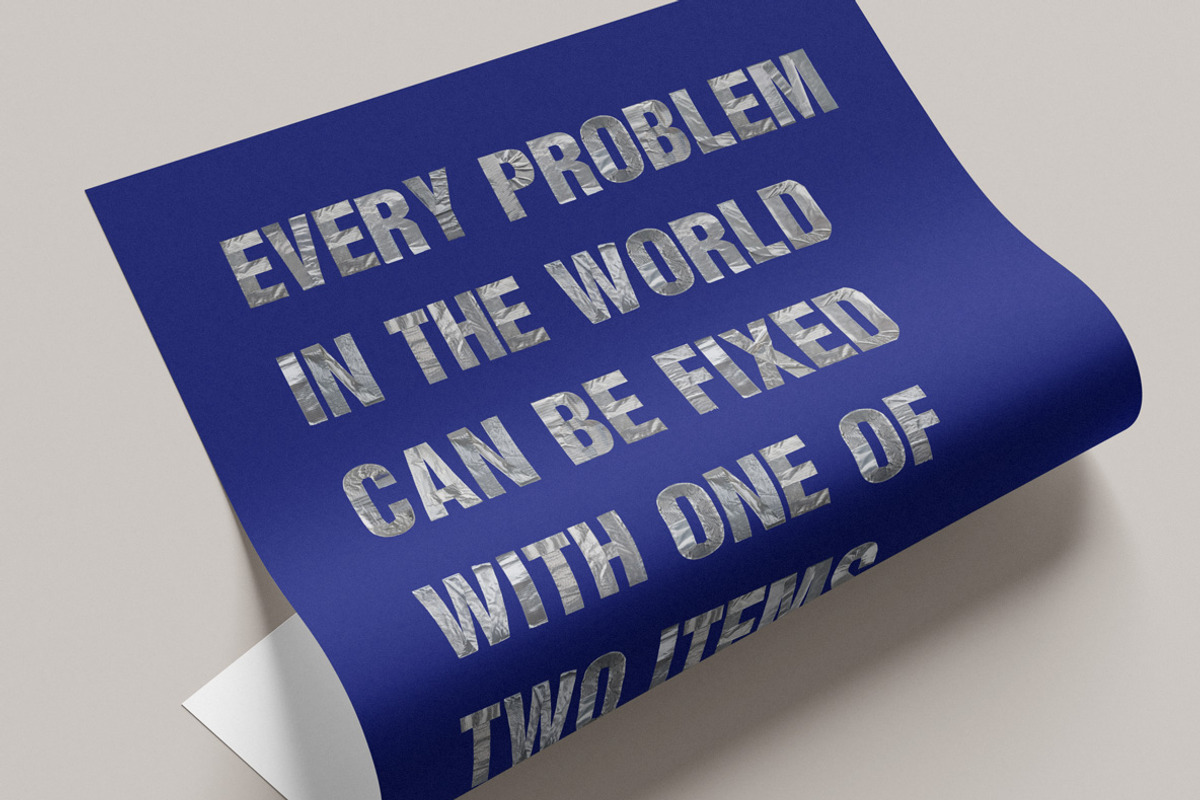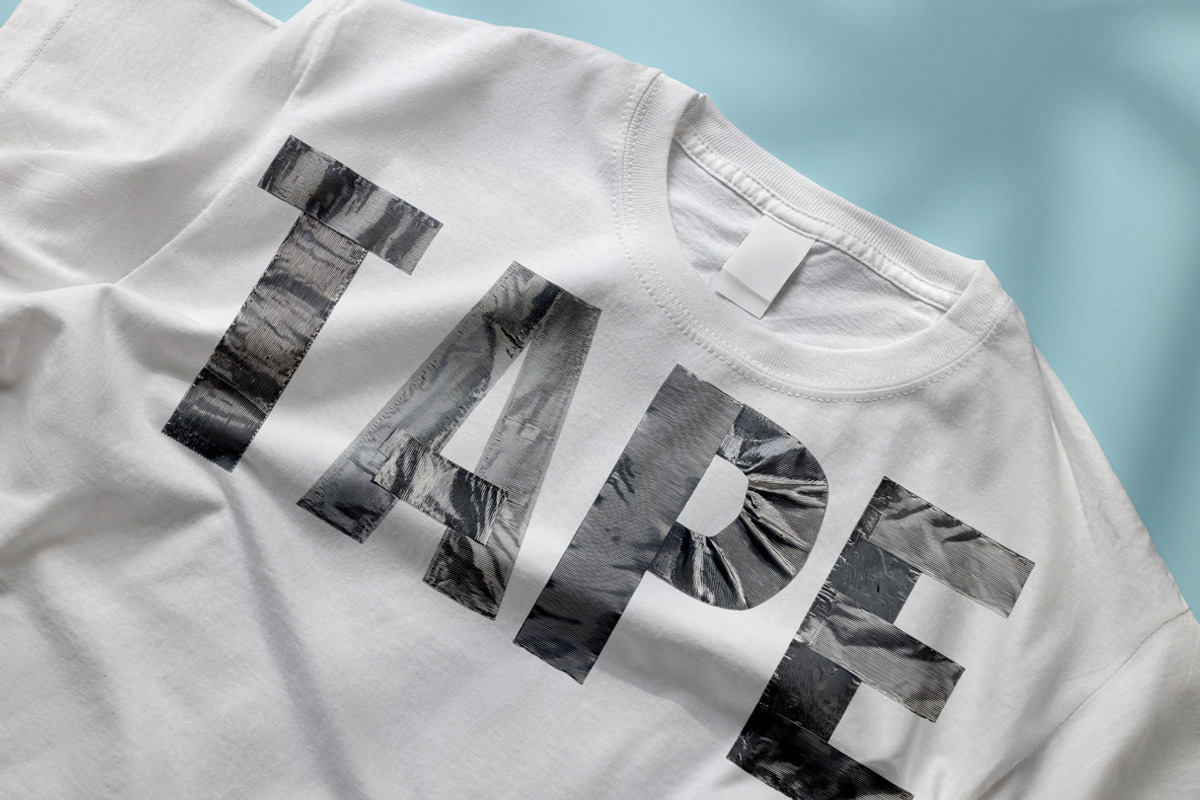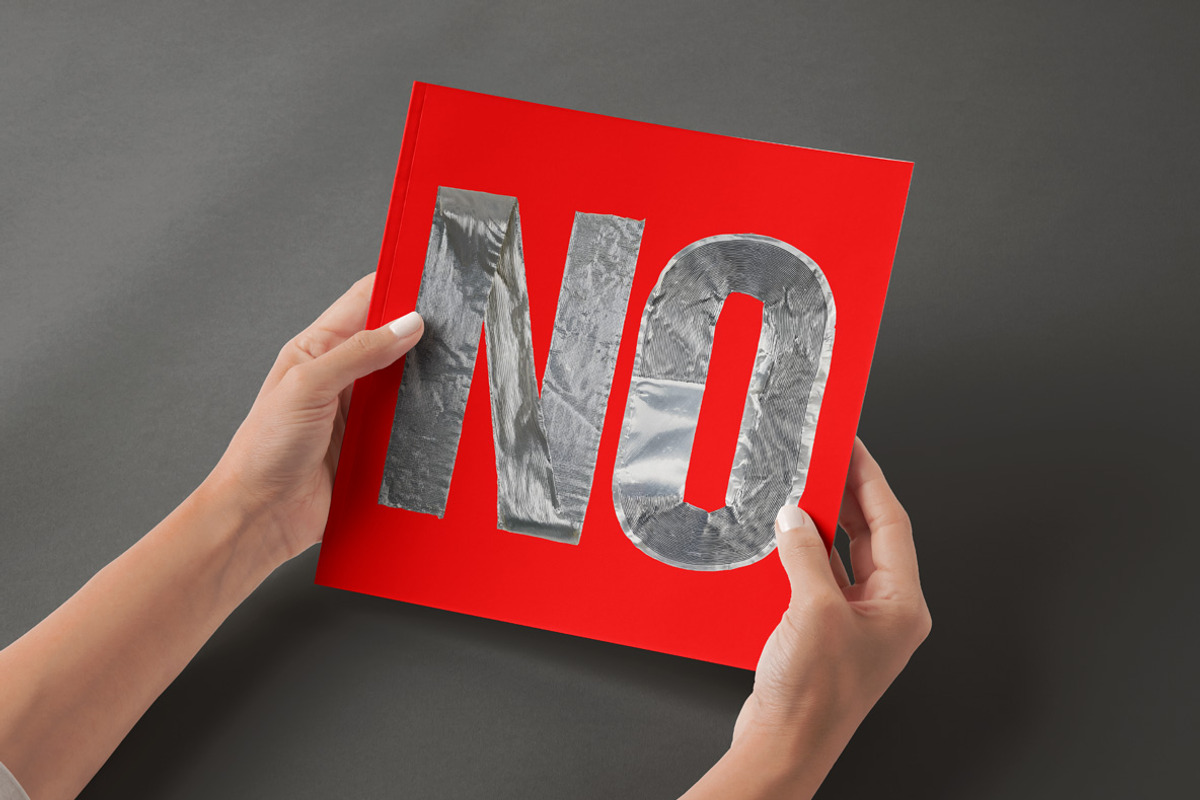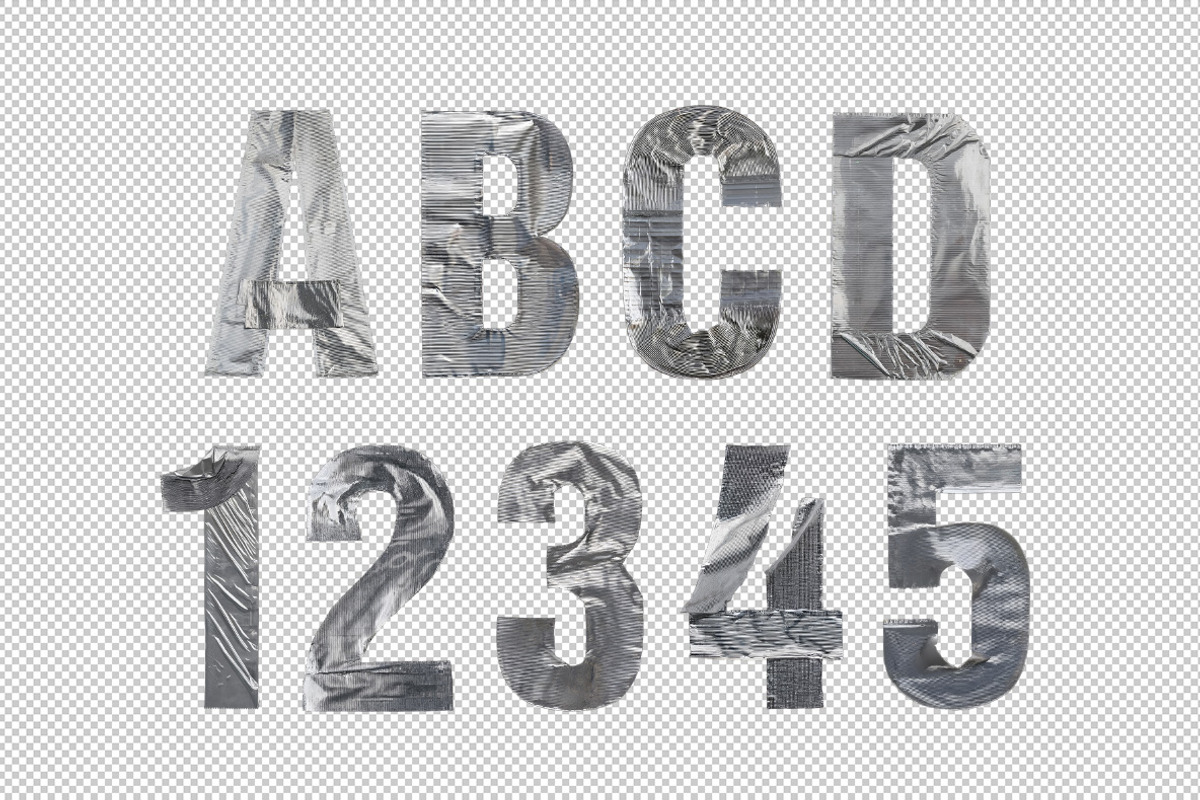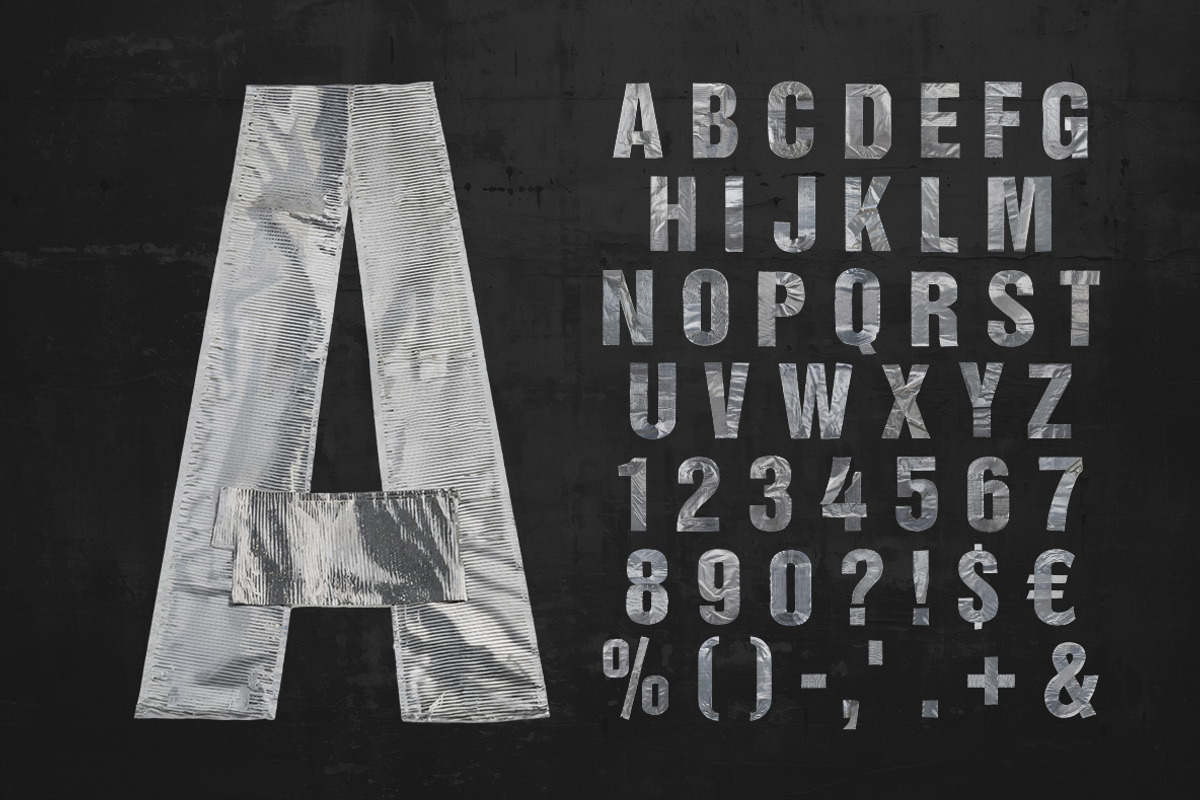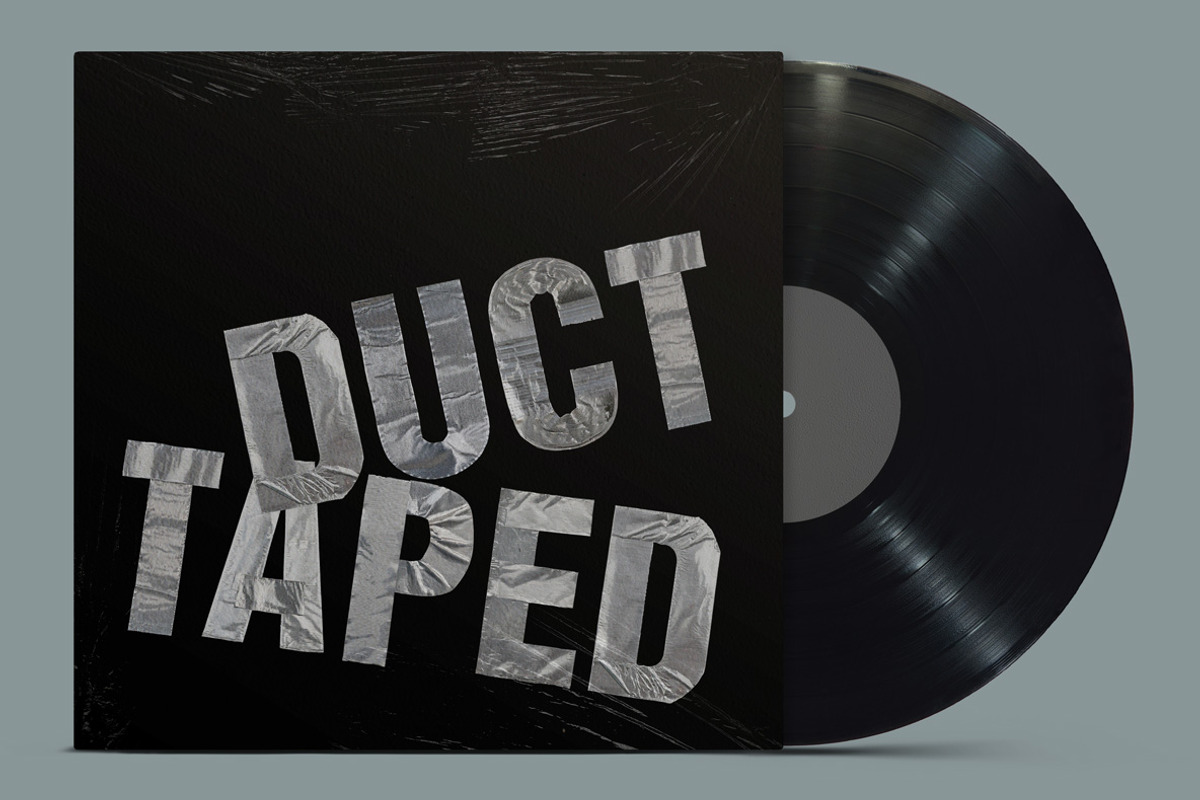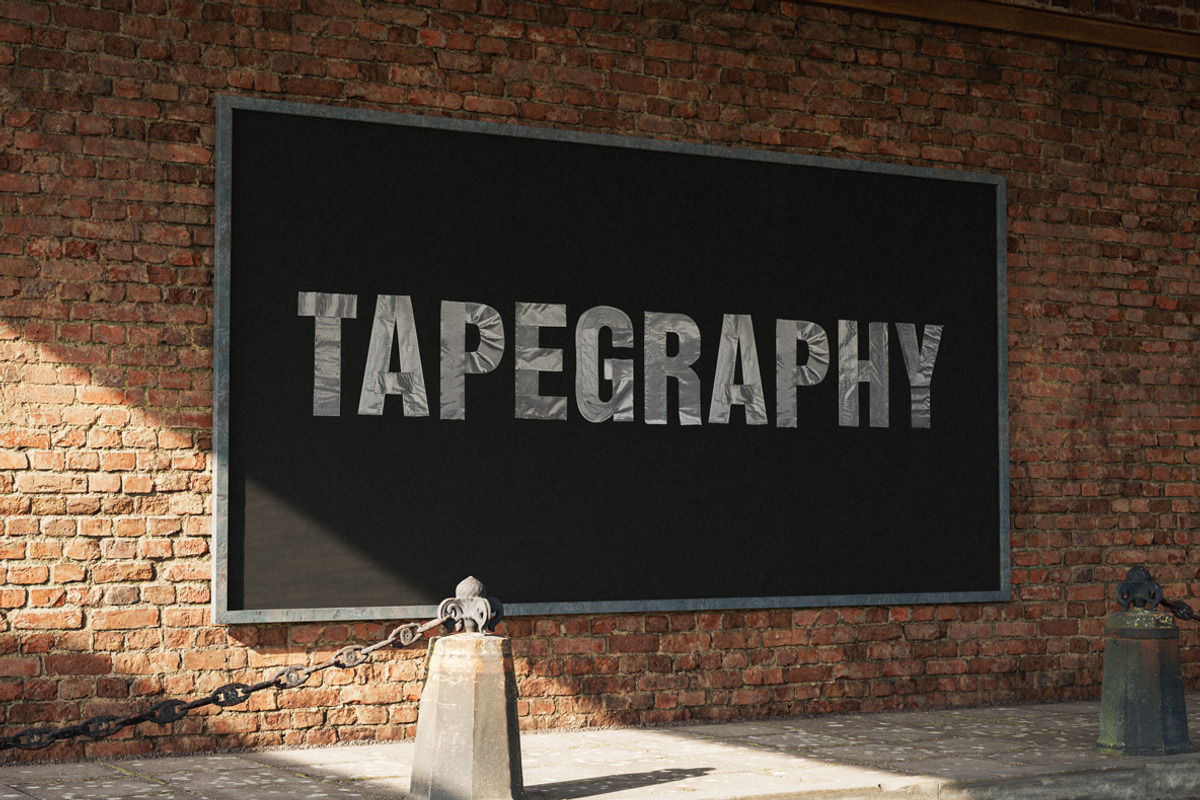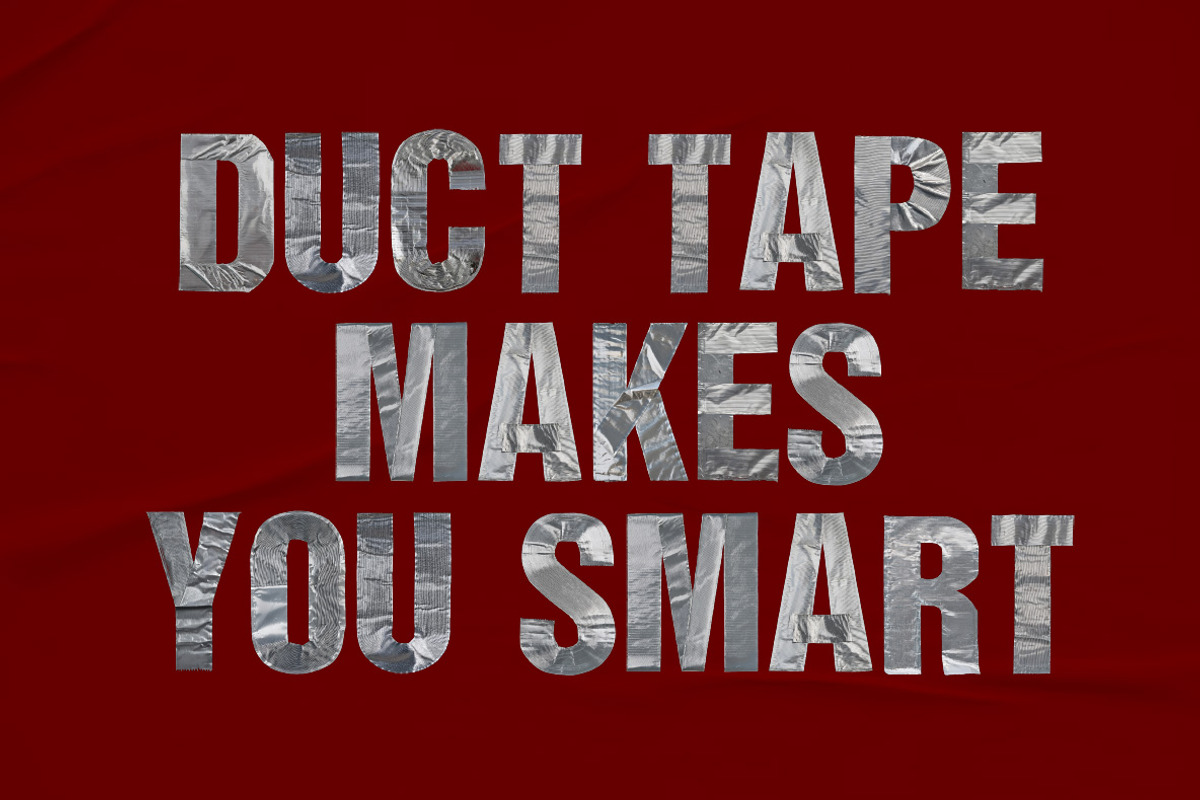
Grey Duct Tape Font
So, the Grey Duct Tape Font—it’s like someone had a nervous breakdown and decided to spell out their feelings with household repairs. Each letter looks like it’s barely holding itself together, which is kind of how I feel most of the time. It’s typography for when you need your message to say, "I tried...sort of."
Duct Tape Font. A high definition OpenType Font. Contains uppercase characters, numerals and basic punctuation. (Draw height roughly 800 pixels). All letters and glyphs that comprises this font you can see on the preview.
- Letters : A B C D E F G H I J K L M N O P Q R S T U V W X Y Z
- Numbers : 0 1 2 3 4 5 6 7 8 9
- Others : ! ? - . ' $ € % &